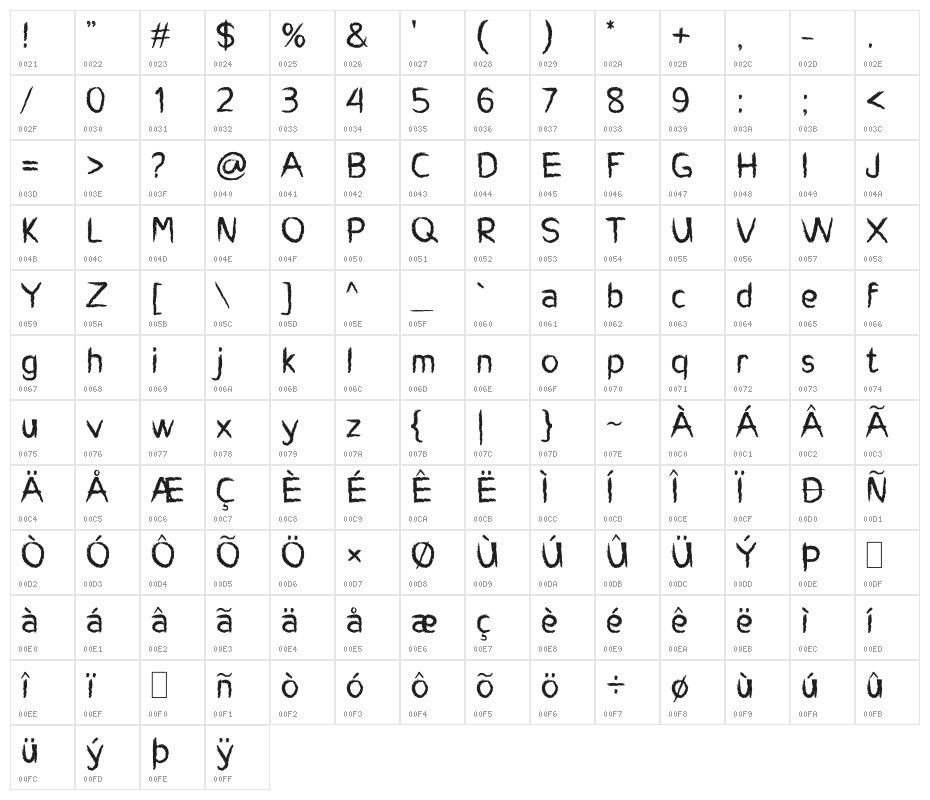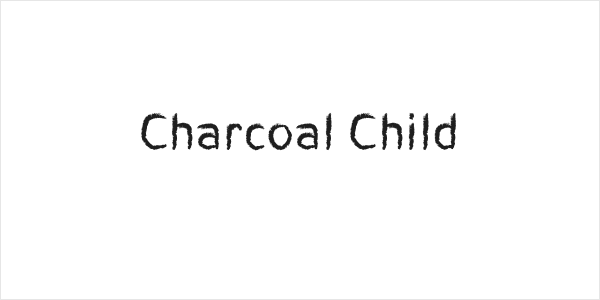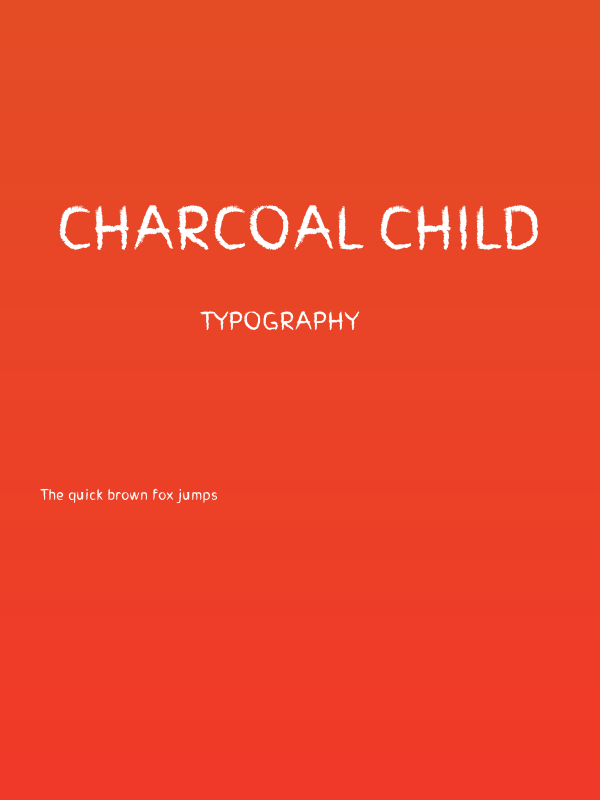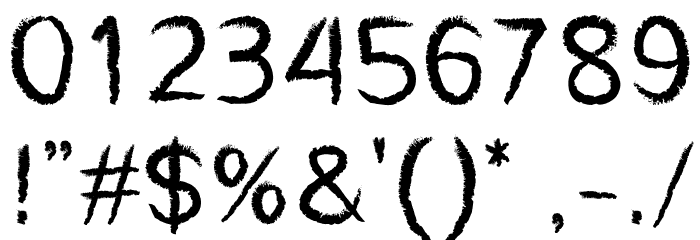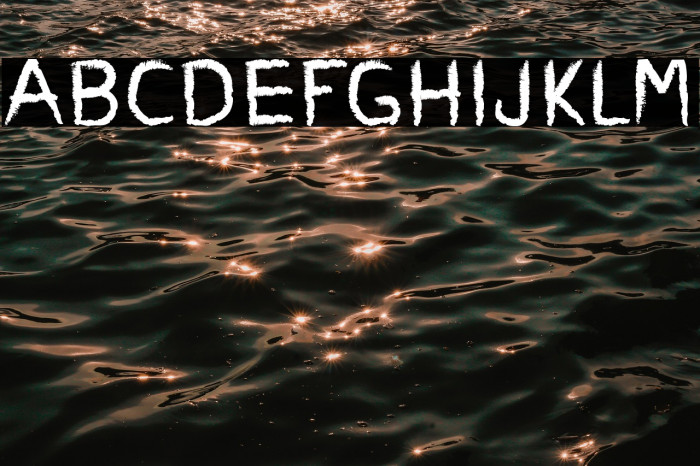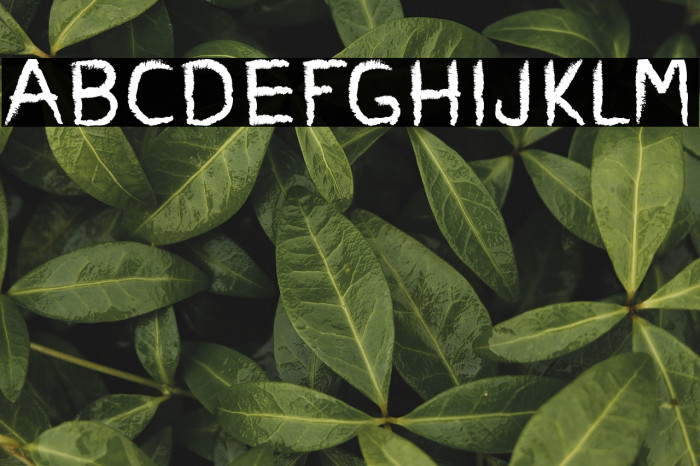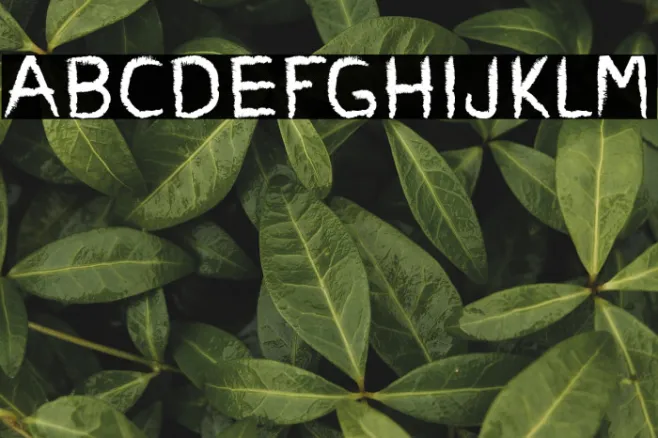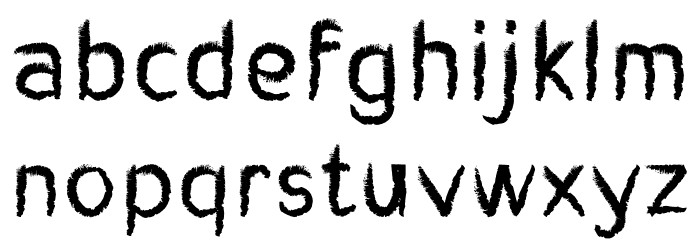
Charcoal Child Font
Charcoal Child Description
This font features a textured, hand-drawn appearance reminiscent of charcoal sketches. The strokes are uneven and organic, giving it a playful and artistic feel. Each character is distinct, with rough edges and a slightly irregular form, adding to its charm. The uppercase and lowercase letters maintain a consistent style, while the numbers and special characters complement the overall aesthetic. This font is ideal for projects that require a touch of creativity and informality, such as children's books, artistic posters, or casual branding.
| Overall Style | Artistic, Playful |
| Proposed Projects | Children's books, artistic posters, casual branding, creative invitations. |